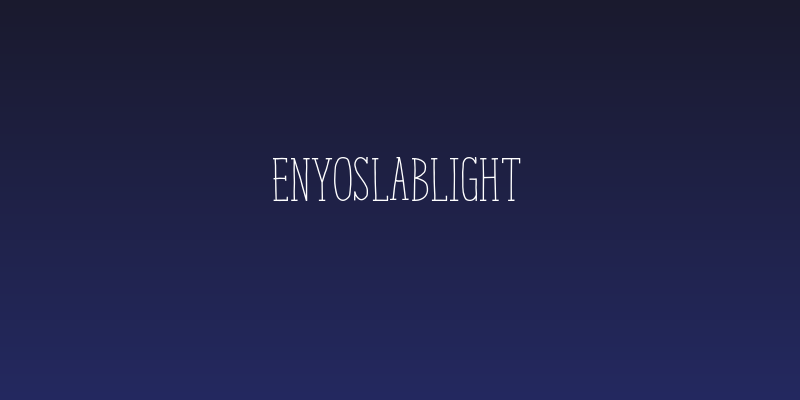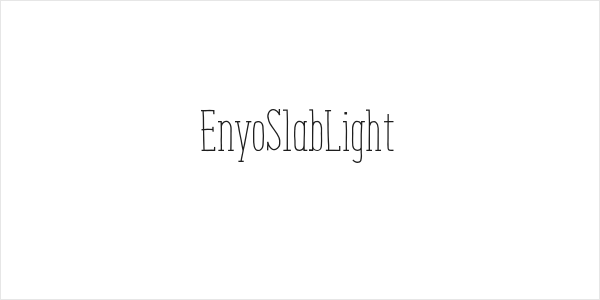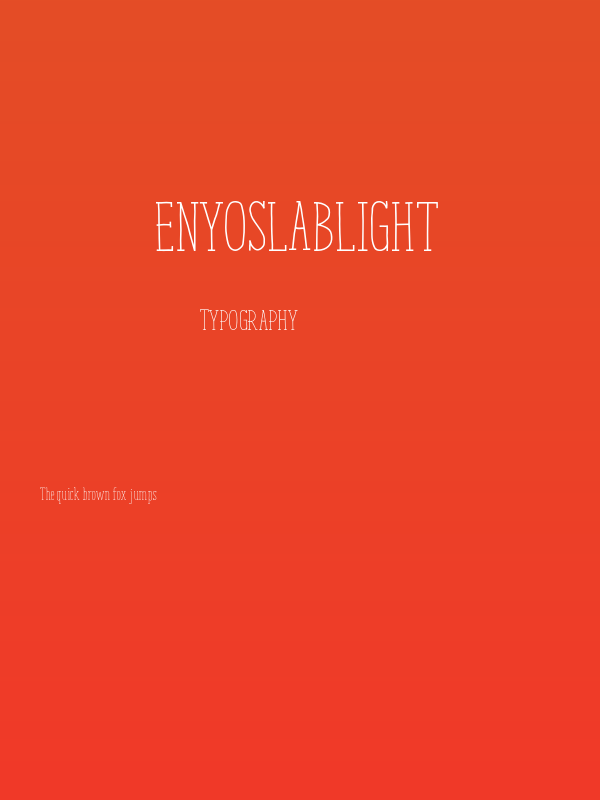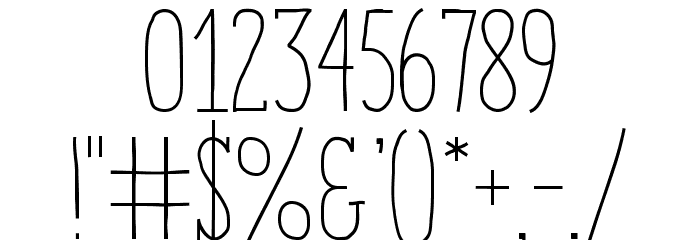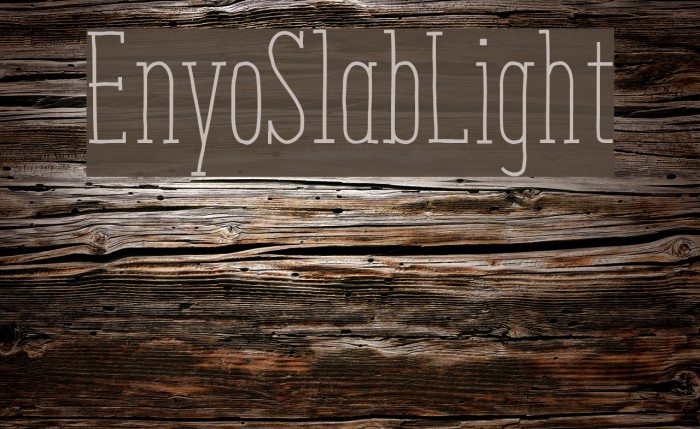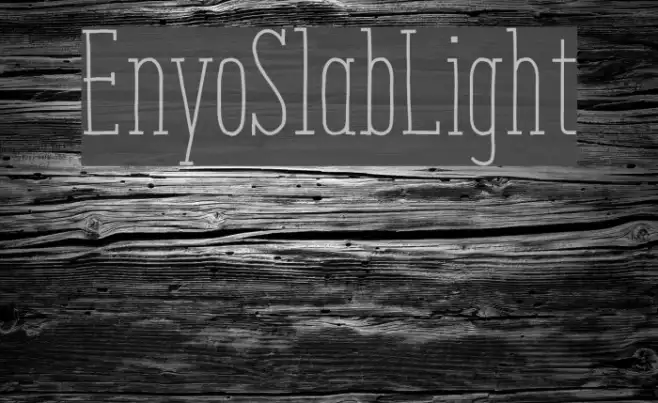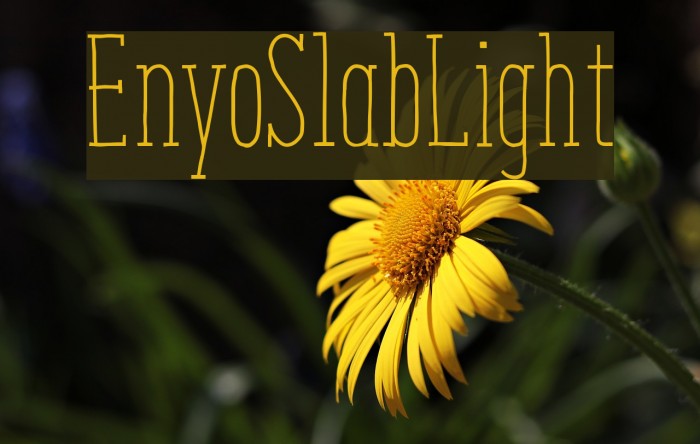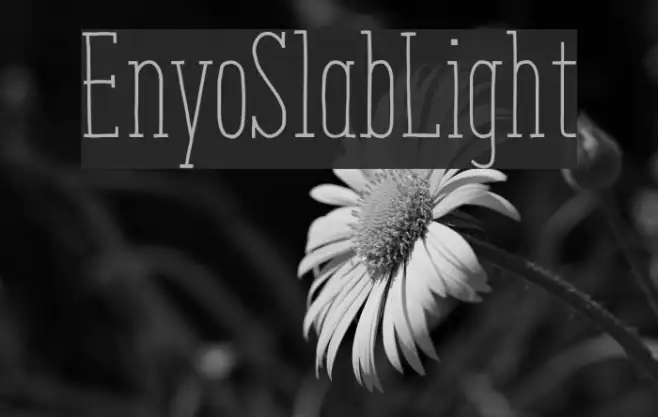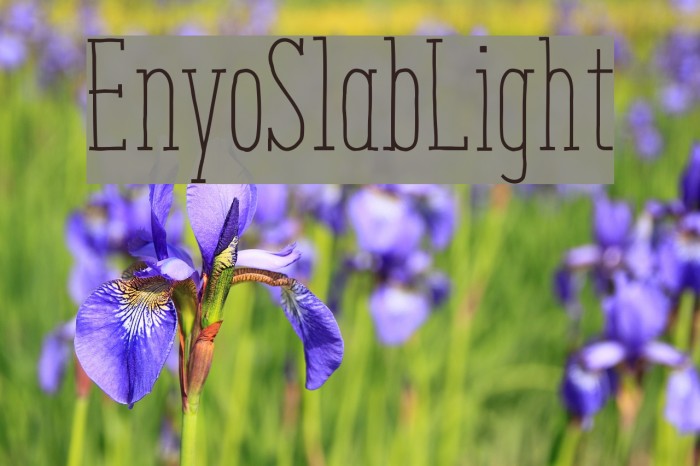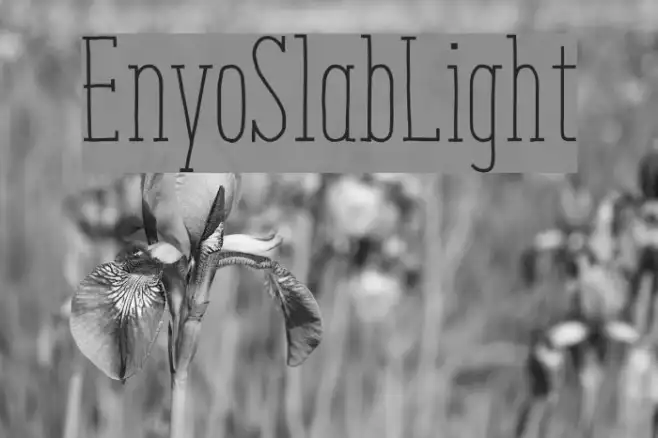
EnyoSlabLight Font
EnyoSlabLight Description
This font features a distinctive slab serif style with thin, elongated strokes that give it a light and airy appearance. The uppercase letters are tall and narrow, while the lowercase letters maintain a consistent height, creating a harmonious balance. The numerals are clear and legible, with a uniform width that complements the overall design. Special characters are elegantly integrated, maintaining the font's cohesive aesthetic. The thin serifs add a touch of sophistication, making it suitable for both modern and classic applications.
| Proposed Projects | Ideal for editorial design, book covers, and elegant branding projects. |